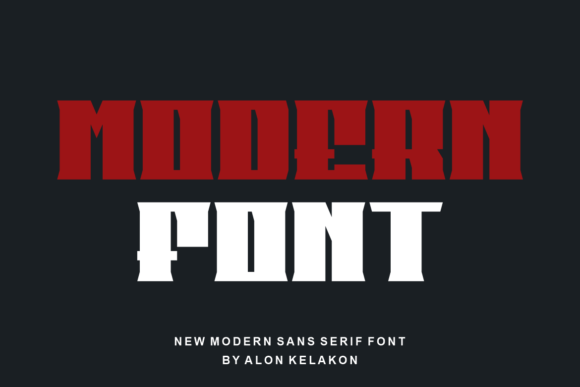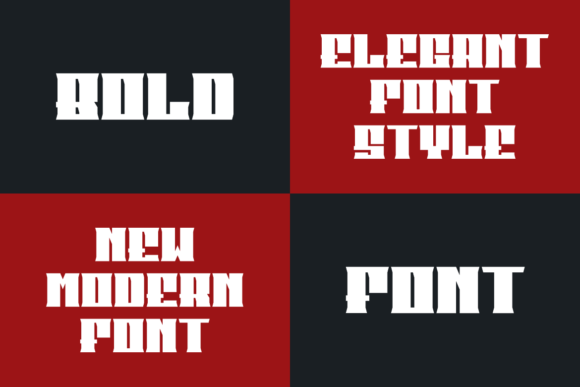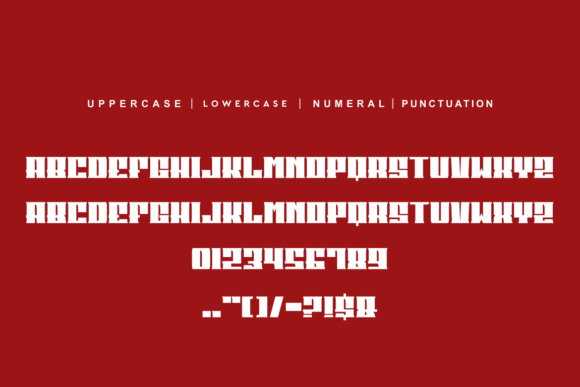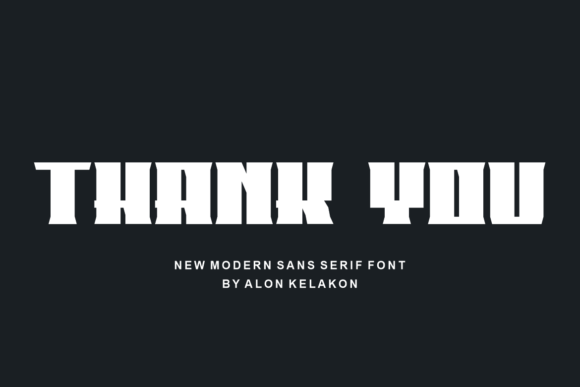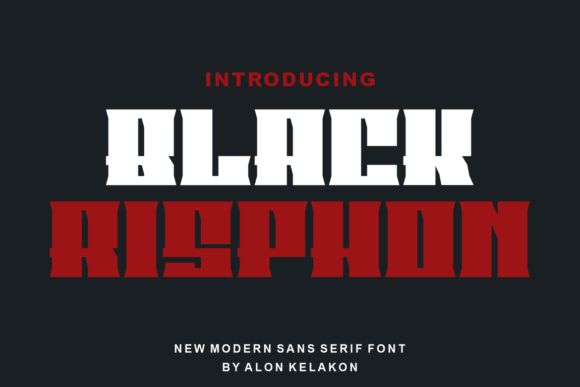
An Honest Review of Black Risphon Font
- ✨ Bold and Assertive: Black Risphon Font is perfect for making a statement. Its bold design ensures that your text will stand out, making it ideal for headings, titles, and displays.
- ✅ Contemporary and Fresh: The font has a modern feel to it, making it perfect for a wide range of applications, from digital media to print.
- 🌈 Versatile: Black Risphon Font can be used for various design projects, including logos, branding, posters, and more.
While Black Risphon Font is an excellent choice, there are a few things to keep in mind ⚠️:
- 🤔 Legibility at Small Sizes: Due to its bold design, Black Risphon Font may not be the best choice for body text or small font sizes. It’s best used for headings and titles.
- ⚠️ Limited OpenType Features: Black Risphon Font does not have extensive OpenType features, which may limit its use in certain design applications.
The Backstory of Black Risphon Font
Black Risphon Font was designed by a team of typographers who wanted to create a bold, modern sans serif font that would make a statement. Inspired by the geometric shapes of modern architecture, they crafted a font that is both fresh and contemporary.
| Font Name | Black Risphon Font |
| Author | alonkelakon |
Q: Is Black Risphon Font suitable for body text?
A: No, Black Risphon Font is best used for headings, titles, and displays. Its bold design may not be suitable for body text or small font sizes.